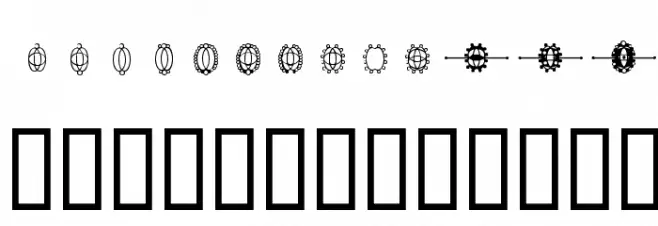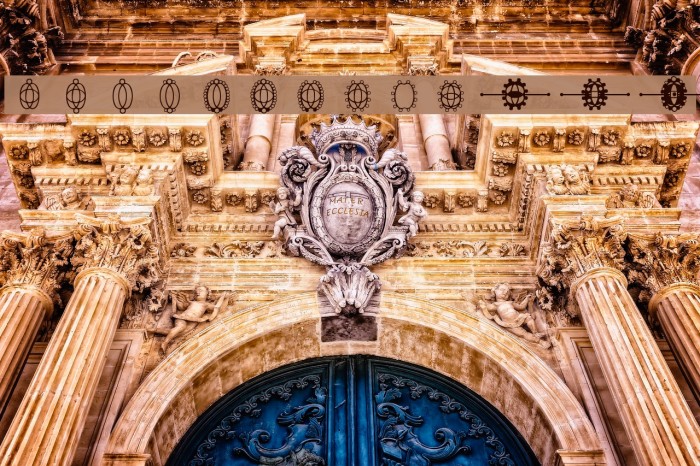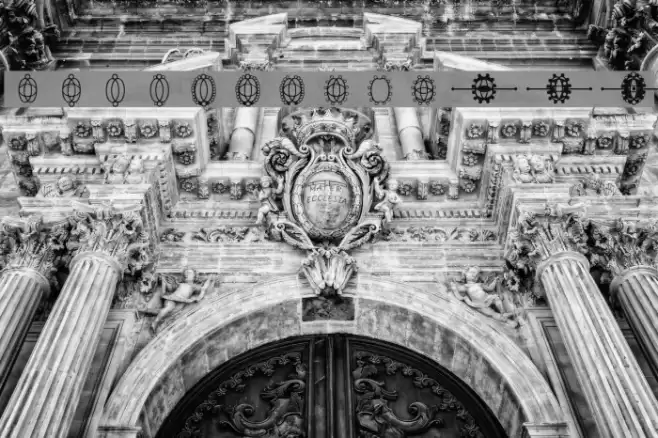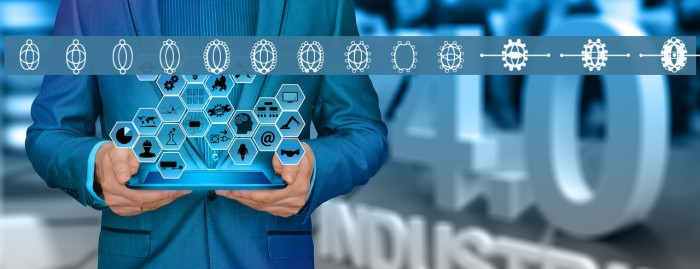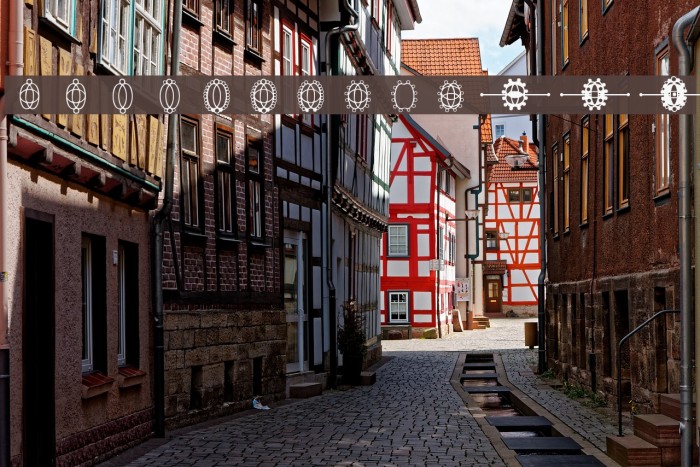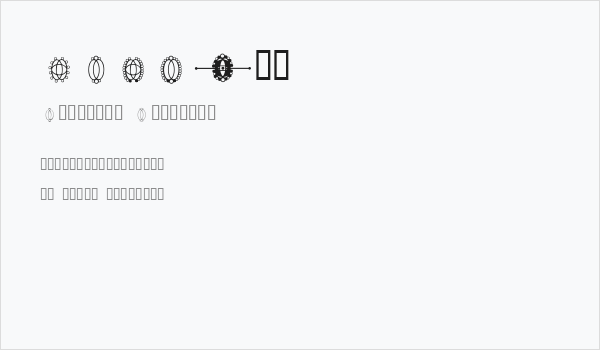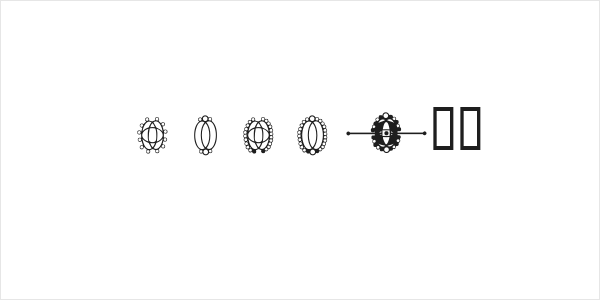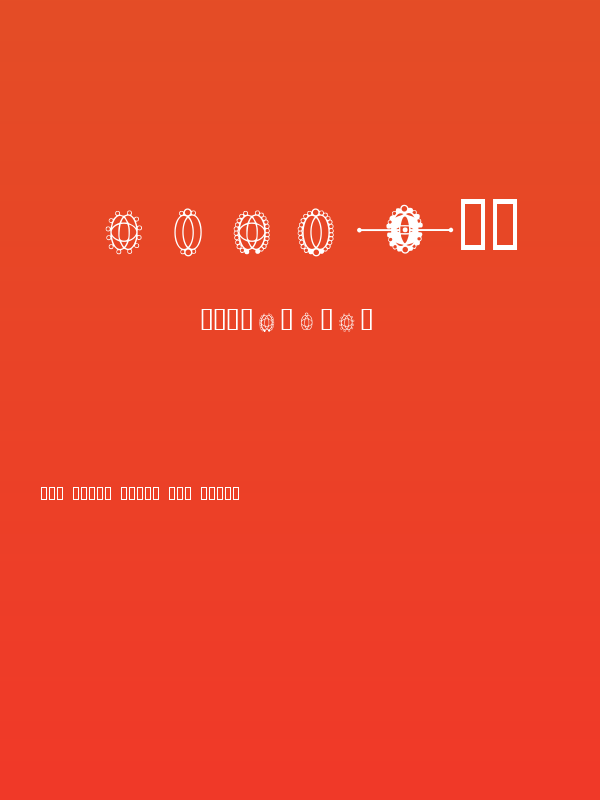
HDGEMS2 Font
HDGEMS2 Description
A decorative symbol font featuring various gemstone and jewelry-like outlines, with each character representing a different gem cut or setting. The designs are intricate, line-based, and ornamental, focusing on geometric and symmetrical shapes.
Overall StyleDecorative, Ornamental
Use CaseLogos, Decorative elements, Themed graphics
Proposed ProjectsJewelry branding, luxury packaging, event invitations, decorative dividers, themed graphics.